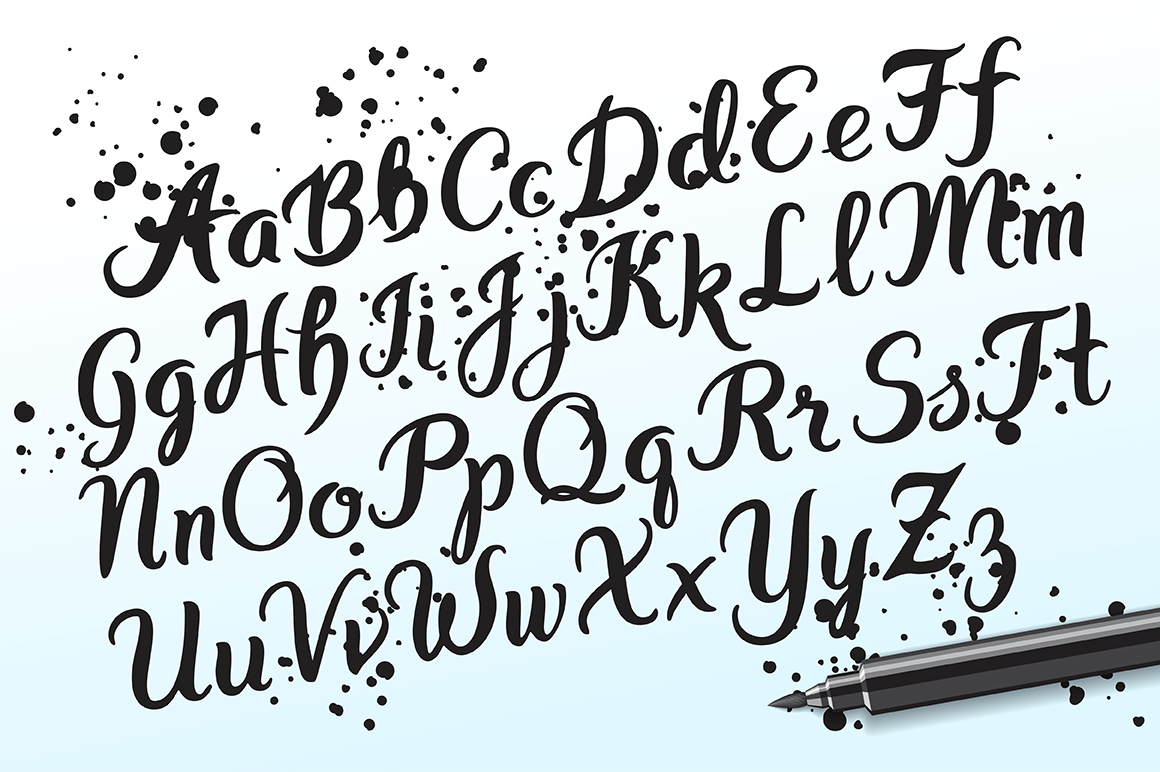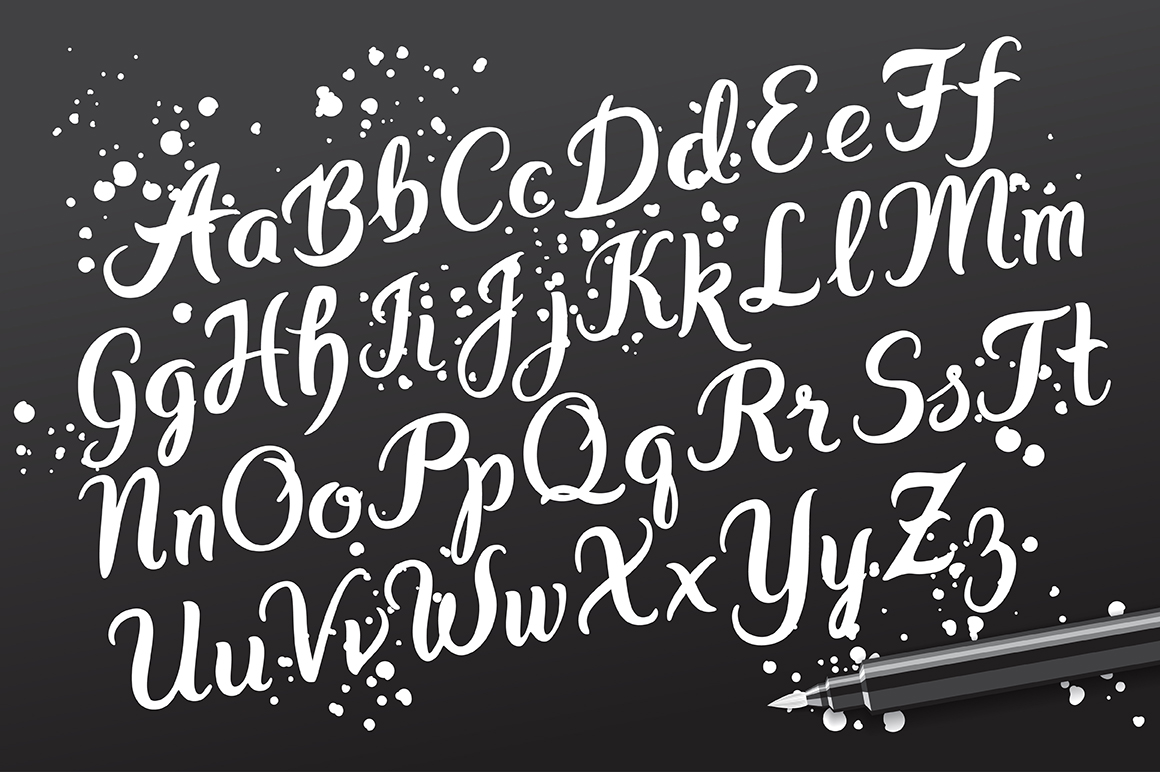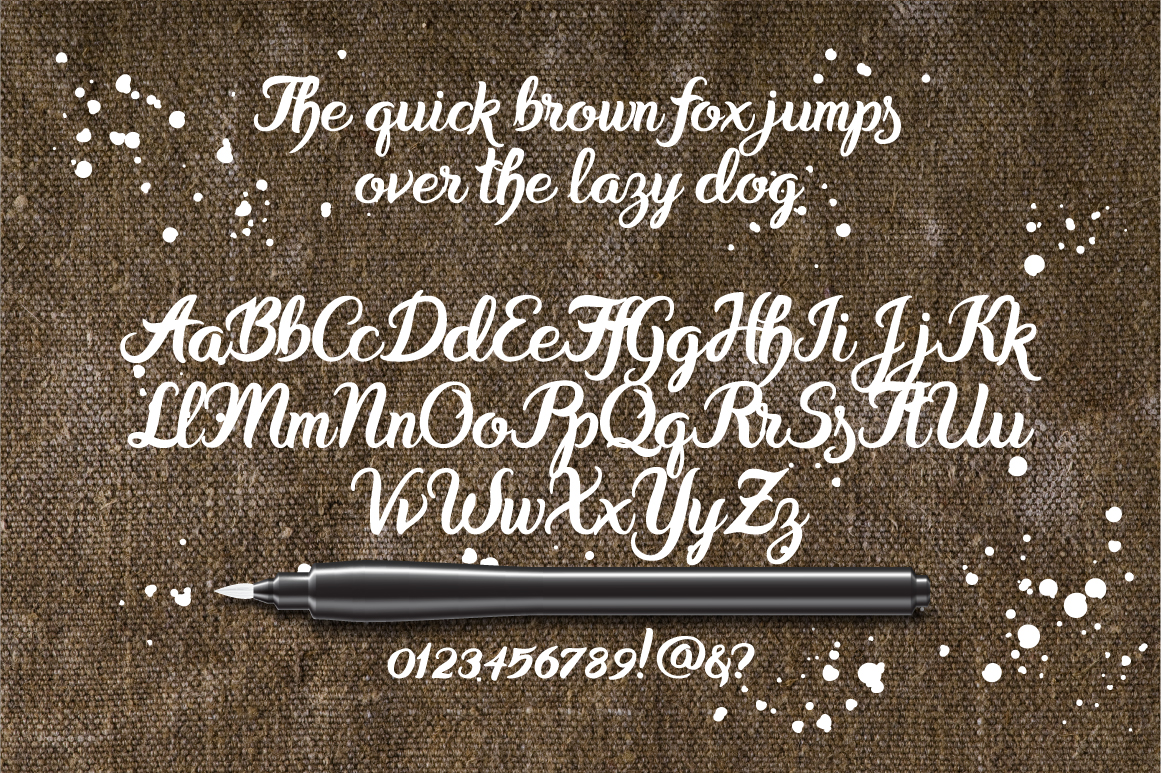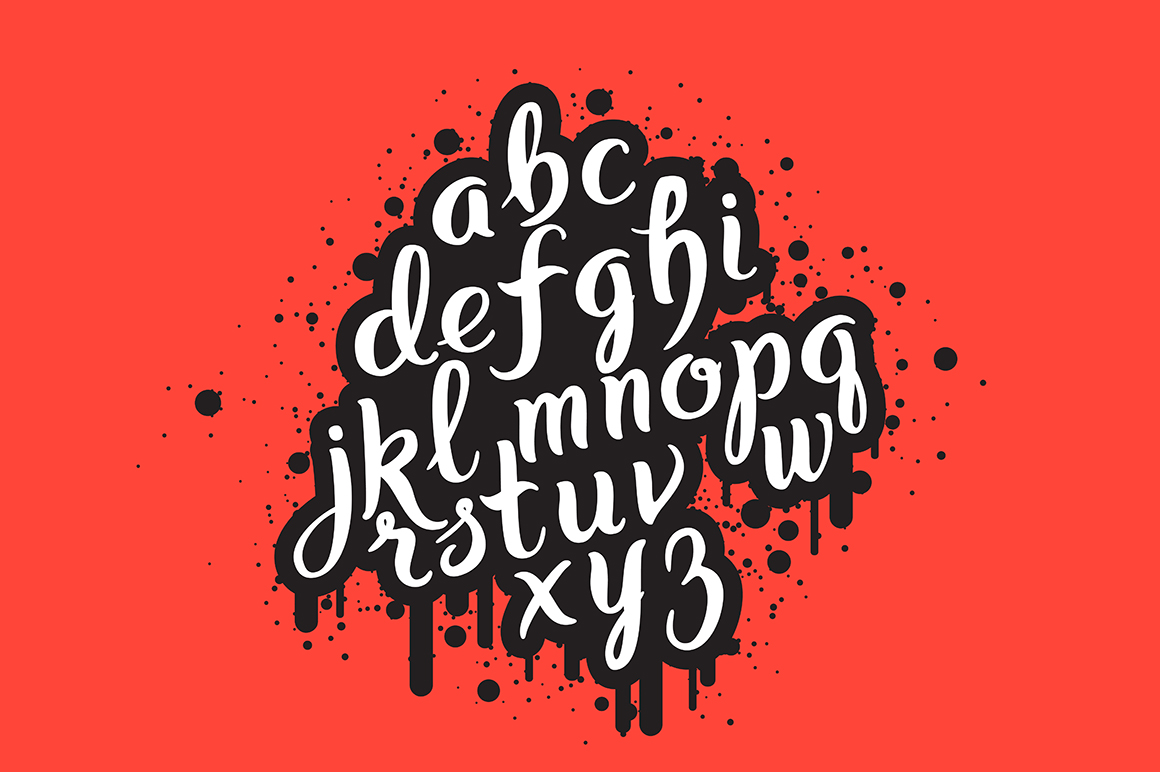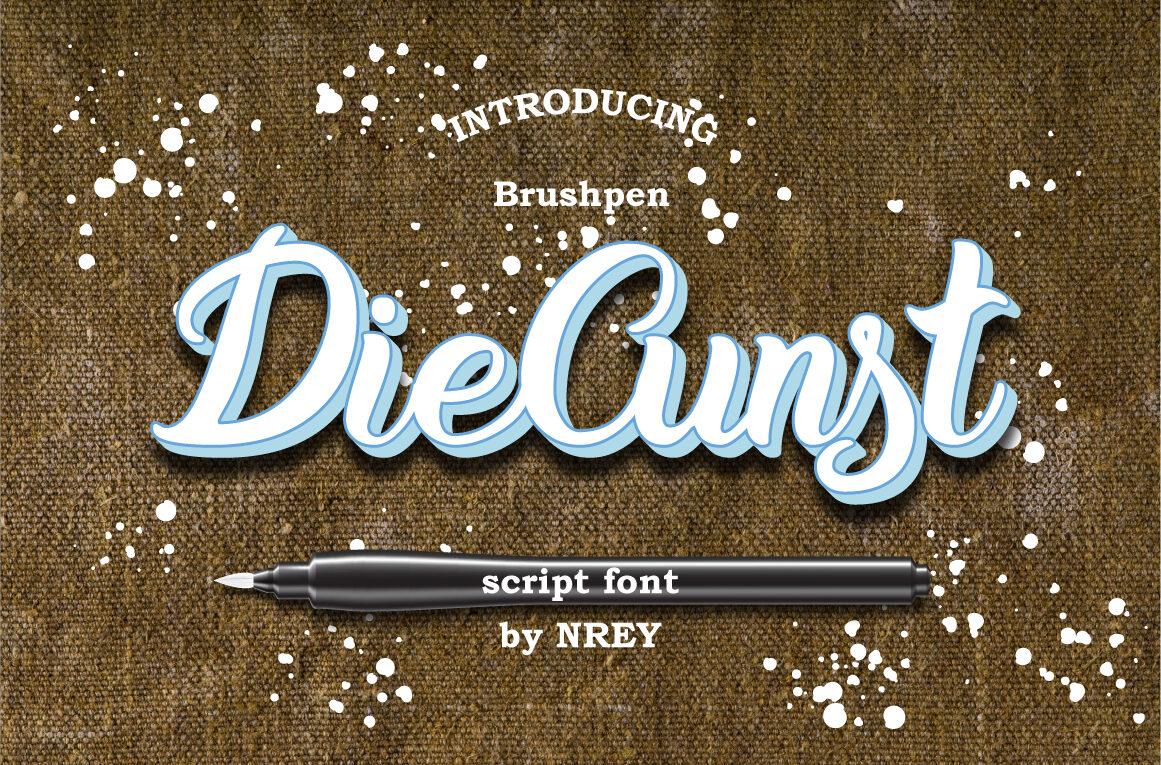
Introducing DieCunst: A Handmade Custom Brushpen Script Font
Are you tired of using the same old fonts in your designs? Do you want to add a personal touch to your craft projects? Look no further than DieCunst, a beautiful calligraphic handmade custom brushpen script font. In this article, we’ll take a closer look at DieCunst and what makes it special.
What is DieCunst?
DieCunst is a unique script font that is handcrafted to give your designs a personal and artistic touch. The font is created using a custom brushpen, which gives it a distinctive and authentic look. The result is a font that is both elegant and rustic, perfect for a wide range of design projects.
Features of DieCunst
So, what makes DieCunst so special? Here are just a few of its key features:
- Handmade with love: DieCunst is carefully crafted by hand, ensuring that every letter and stroke is unique and authentic.
- Custom brushpen script: The font is created using a custom brushpen, which gives it a distinctive look and feel.
- Latin characters only: DieCunst contains only Latin characters, making it perfect for English and other languages that use the Latin alphabet.
- Perfect for designs and crafts: DieCunst is ideal for a wide range of design projects, from invitations and greeting cards to scrapbooking and other crafts.
Uses for DieCunst
DieCunst is a versatile font that can be used in a wide range of design projects. Here are just a few ideas to get you started:
- Invitations and greeting cards: Add a personal touch to your invitations and greeting cards with DieCunst’s elegant and rustic script.
- Scrapbooking: DieCunst is perfect for scrapbooking and other paper crafts, adding a touch of handmade charm to your designs.
- Sign making: Use DieCunst to create beautiful and eye-catching signs for your business or home.
- Digital designs: DieCunst can also be used in digital designs, such as social media graphics, blog posts, and more.
Why Choose DieCunst?
With so many fonts to choose from, why should you choose DieCunst? Here are just a few reasons:
- Unique and authentic: DieCunst is a one-of-a-kind font that will add a personal touch to your designs.
- Elegant and rustic: The font’s elegant and rustic look makes it perfect for a wide range of design projects.
In conclusion, DieCunst is a beautiful and unique calligraphic handmade custom brushpen script font that is perfect for designers and crafters. With its elegant and rustic look, DieCunst is ideal for a wide range of design projects, from invitations and greeting cards to scrapbooking and other crafts. So why settle for a generic font when you can add a personal touch to your designs with DieCunst?